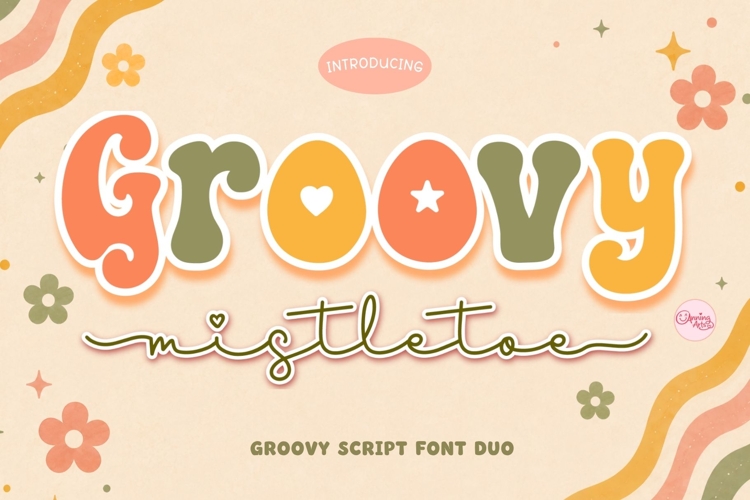
Groovy Mistletoe is a fun retro-inspired font duo featuring a bold display font and a handwritten script. Perfect for holiday designs, branding, Cricut crafts, sublimation, greeting cards, apparel, mugs, stickers, invitations, and more.